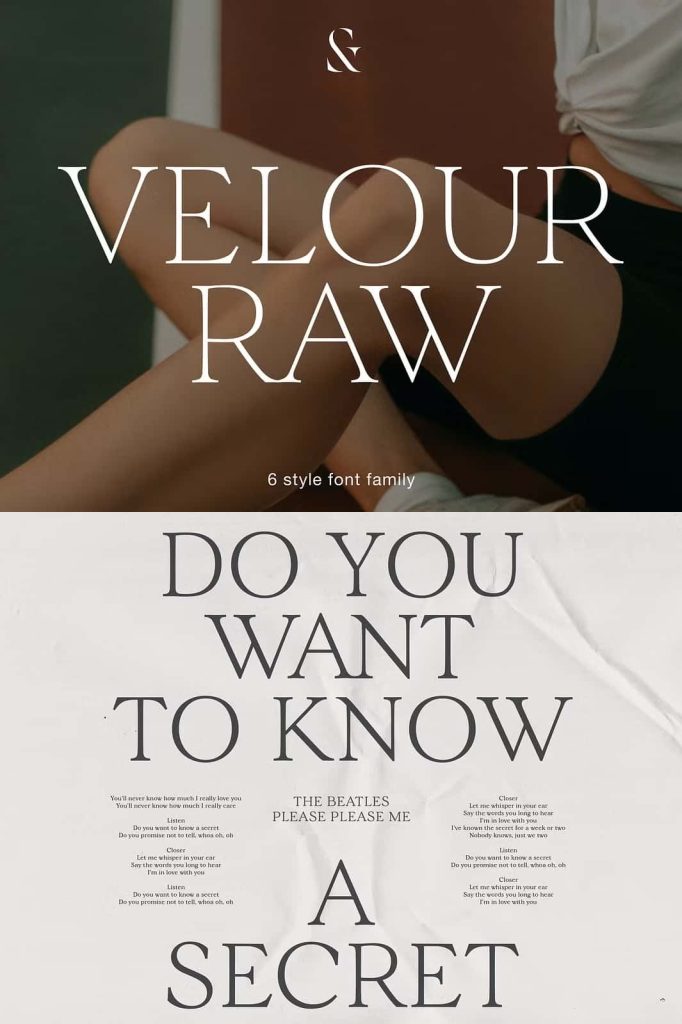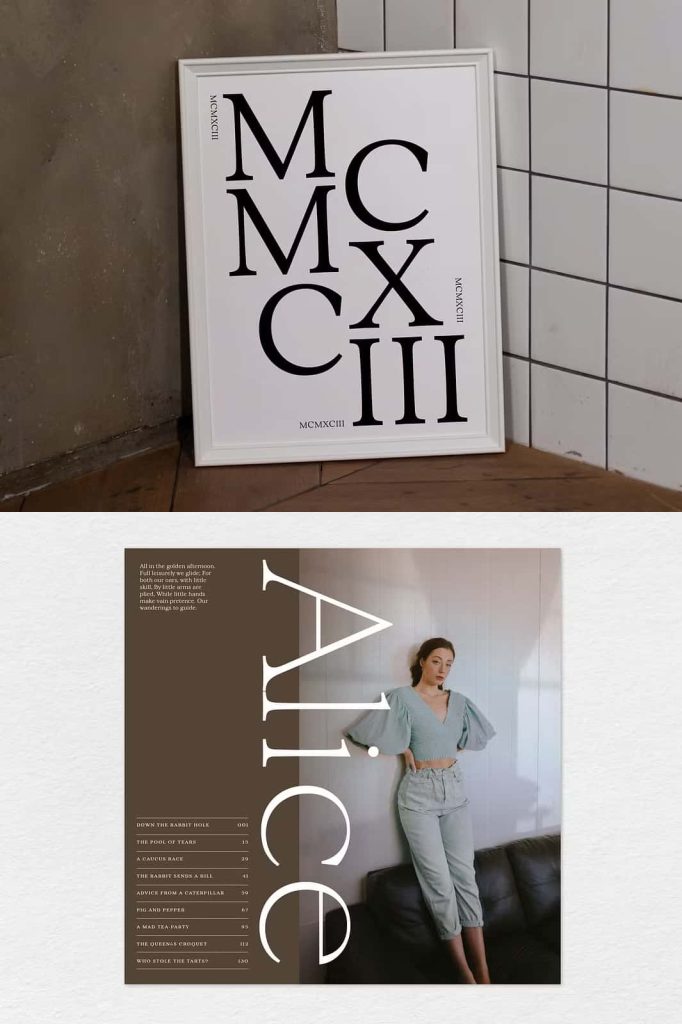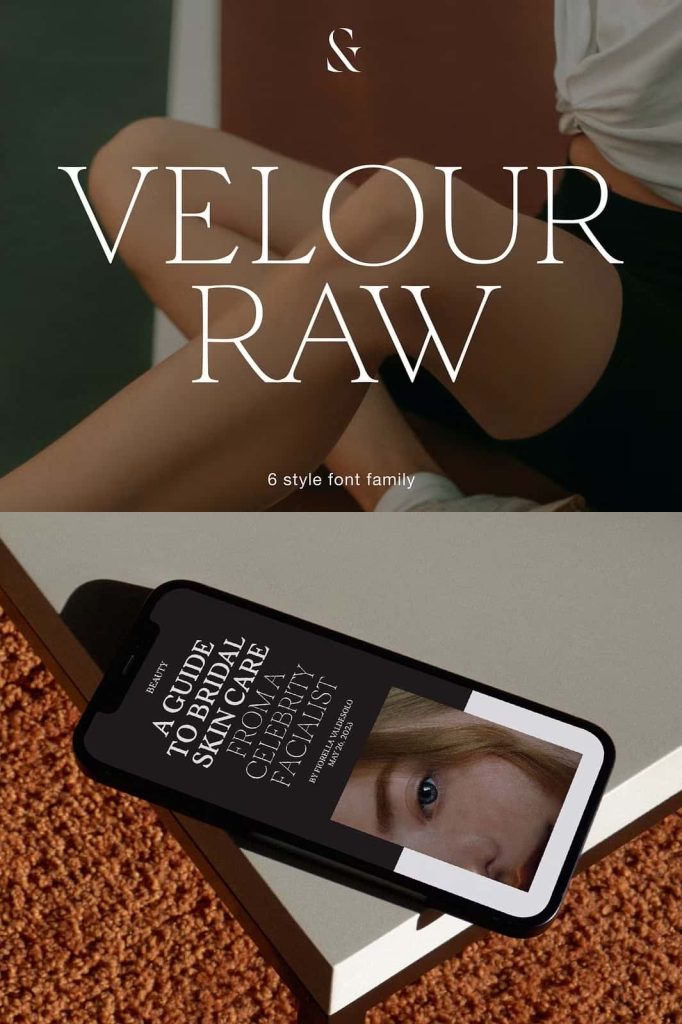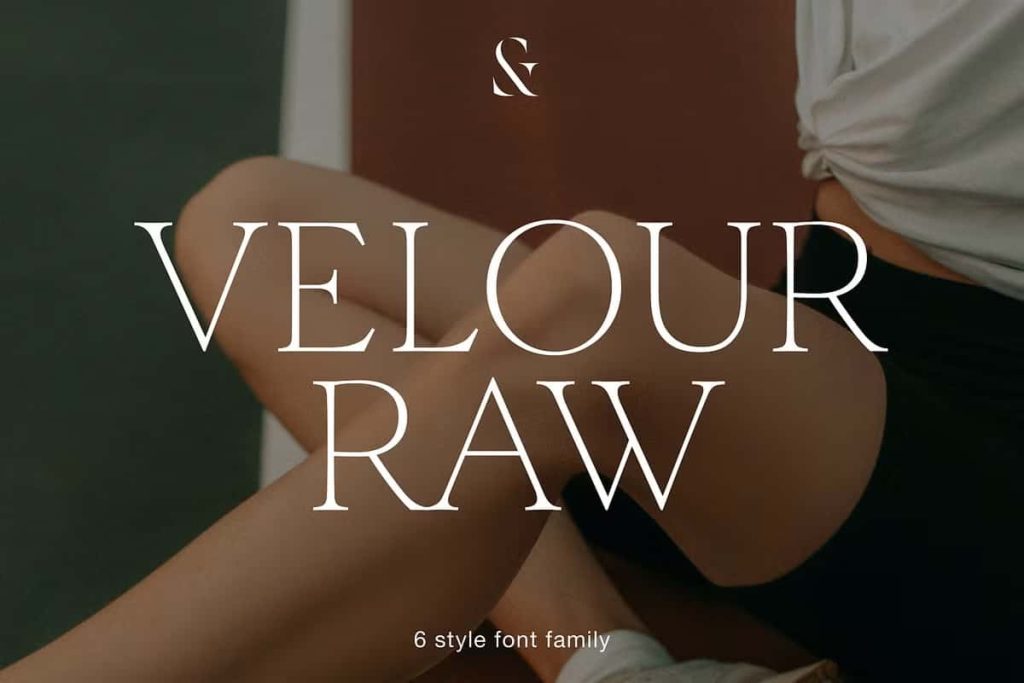
Velour Raw Font Family
Velour Raw is a refined geometric typeface that delivers exceptional versatility for both display and text applications. Developed as a simpler, less contrasted version of the original Velour display typeface, Velour Raw preserves the distinctive personality of its predecessor while improving readability across a wider range of sizes. Its clean construction, balanced proportions, and understated details make it an excellent choice for designers who need typography that performs equally well in bold headlines and smaller body text.
Available in six carefully designed weights, ranging from Thin to Bold, Velour Raw gives designers complete flexibility to build consistent visual hierarchies across print and digital media. Whether you are creating modern branding, editorial layouts, websites, mobile interfaces, packaging, or marketing materials, this font family offers the clarity, sophistication, and functionality needed for professional design projects.
A Modern Typeface with Enhanced Readability
While the original Velour was designed primarily as a striking display typeface, Velour Raw takes a more practical approach by reducing contrast and simplifying its overall appearance. These subtle refinements improve legibility, especially when the font appears in smaller sizes or extended passages of text.
The cleaner stroke transitions and balanced letterforms create a smooth reading experience without sacrificing the modern aesthetic that makes the Velour family distinctive. Designers can confidently use Velour Raw for headlines, subheadings, captions, navigation elements, and body copy while maintaining a unified visual identity throughout their projects.
This balance between expressive design and everyday usability makes Velour Raw a valuable addition to any professional font library.
Six Weights for Complete Design Flexibility
Velour Raw includes six thoughtfully crafted weights, allowing designers to create strong typographic contrast while preserving consistency across every layout.
The available weights include:
- Thin
- Extra Light
- Light
- Regular
- Medium
- Bold
Each weight has been carefully optimized to maintain the same visual character while providing different levels of emphasis. Thin and Extra Light styles create elegant, minimalist compositions, while Regular and Medium offer excellent readability for everyday use. Bold delivers confident headlines and attention-grabbing titles without overwhelming the surrounding content.
With this range of styles, designers can establish clear typographic hierarchy and adapt the font family to projects of every scale.
Designed for Both Print and Digital Media
Modern design projects often require typography that performs consistently across multiple platforms. Velour Raw excels in both print and digital environments thanks to its balanced proportions, clean letterforms, and carefully refined spacing.
On high-resolution screens, the font remains crisp and highly legible. In printed materials, its simplified construction produces clean, professional typography that maintains excellent visual consistency from business cards to large-format posters.
This adaptability makes Velour Raw an ideal choice for creative professionals working across multiple media formats.
Wide Language Support for International Projects
Velour Raw supports Western, Central, and South Eastern European languages, making it suitable for multilingual branding and international publications. This extensive character support enables designers to create consistent typography across diverse markets without switching to alternative typefaces.
Whether you are developing corporate communications, multilingual websites, product packaging, magazines, or marketing campaigns, Velour Raw helps maintain a cohesive brand identity while serving audiences across different regions.
Perfect for a Wide Range of Creative Applications
The clean, contemporary style of Velour Raw makes it suitable for countless professional and creative projects.
Brand Identity and Logo Design
Create memorable logos and cohesive visual identities with typography that feels modern, confident, and highly professional. The multiple weights provide flexibility for logos, supporting typography, and brand guidelines.
Editorial Design
Use Velour Raw for magazines, books, brochures, annual reports, newspapers, and catalogs where readability and visual consistency are equally important.
Websites and User Interfaces
The font performs beautifully across websites, mobile applications, dashboards, and software interfaces. Its clear structure enhances user experience while supporting clean, contemporary layouts.
Marketing and Advertising
Create engaging posters, flyers, banners, presentations, advertisements, and promotional materials with typography that communicates professionalism and modern style.
Packaging Design
Velour Raw works exceptionally well on product packaging for fashion, cosmetics, technology, food, beverages, and premium consumer goods. Its balanced appearance communicates quality while remaining highly readable.
If you are looking for a contemporary sans-serif typeface that delivers clarity, flexibility, and timeless sophistication, Velour Raw Font Family is an excellent choice. Its clean design, professional appearance, and dependable performance make it a valuable resource for designers seeking typography that remains elegant, functional, and highly versatile across every creative project.